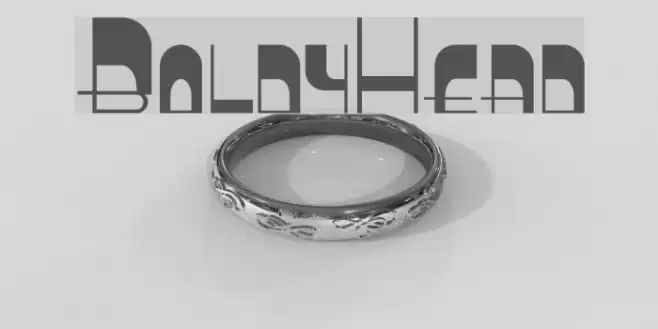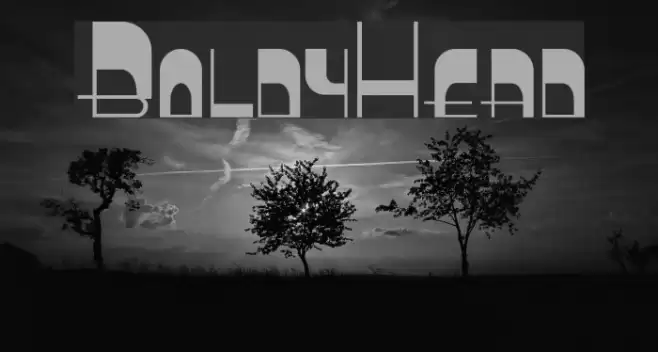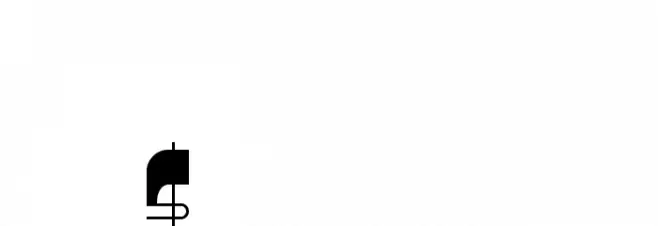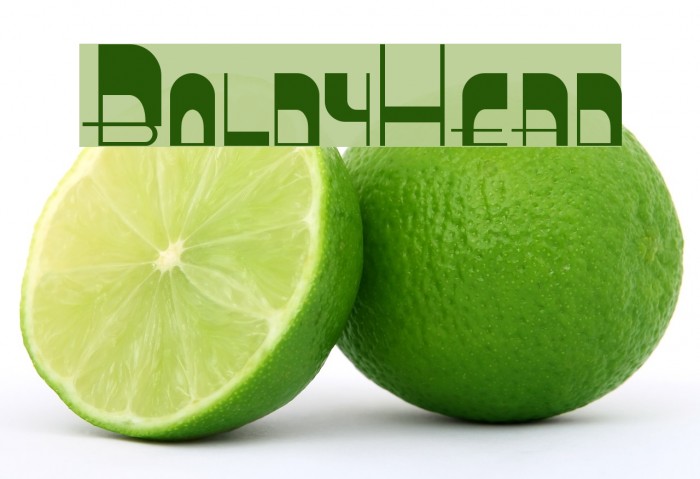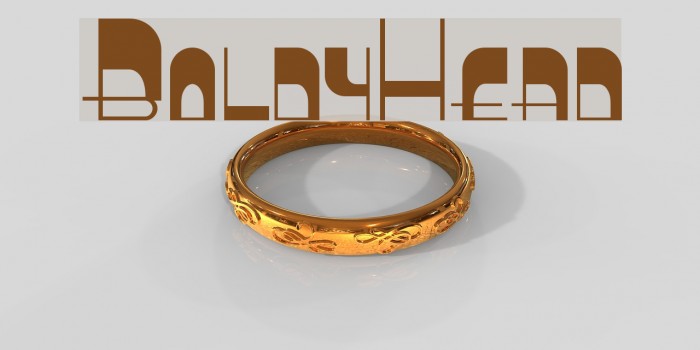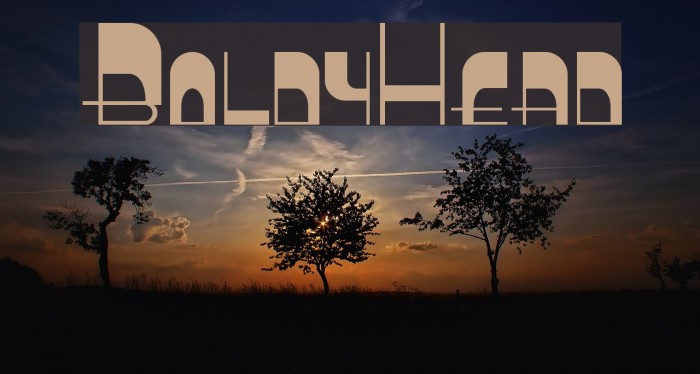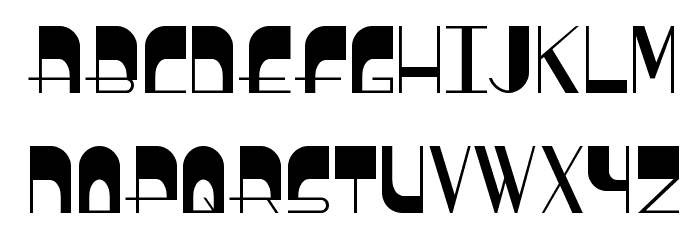
BoldyHead Font
BoldyHead Description
This font features a bold and geometric design with a modern aesthetic. The characters are constructed with thick, block-like forms and sharp angles, giving them a futuristic and industrial feel. The uppercase letters are particularly striking, with a consistent height and width that create a uniform appearance. The lowercase letters maintain the same boldness, ensuring readability while adding a unique style. The numerals and special characters are designed to match the overall theme, with distinct shapes that stand out. This font is ideal for projects that require a strong visual impact.
A bold, geometric font with a modern and industrial style from Fancy fonts.
- Proposed Projects: Ideal for branding, posters, headlines, and any design requiring a strong visual impact.